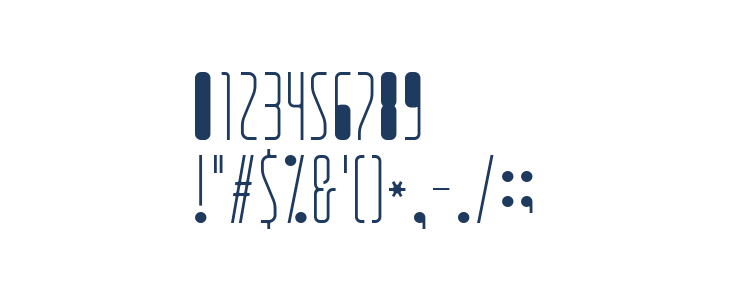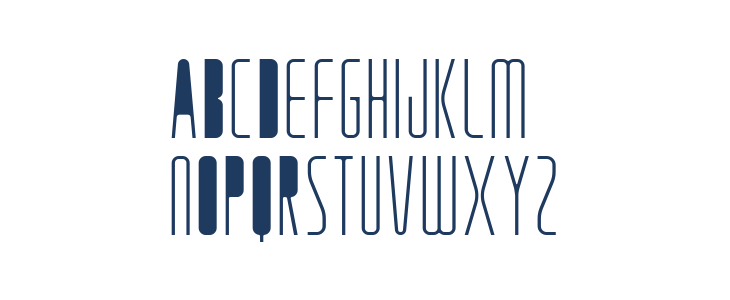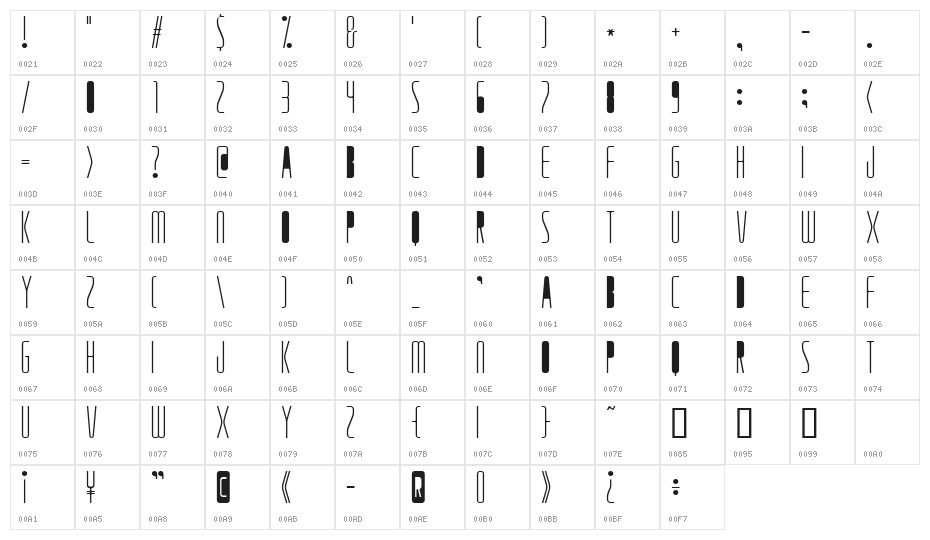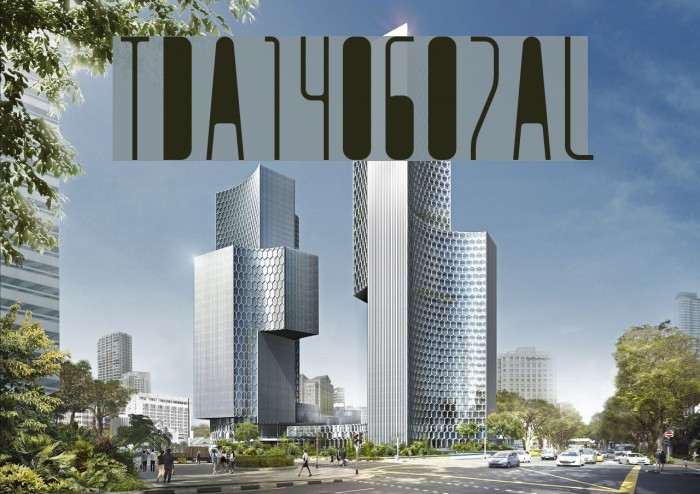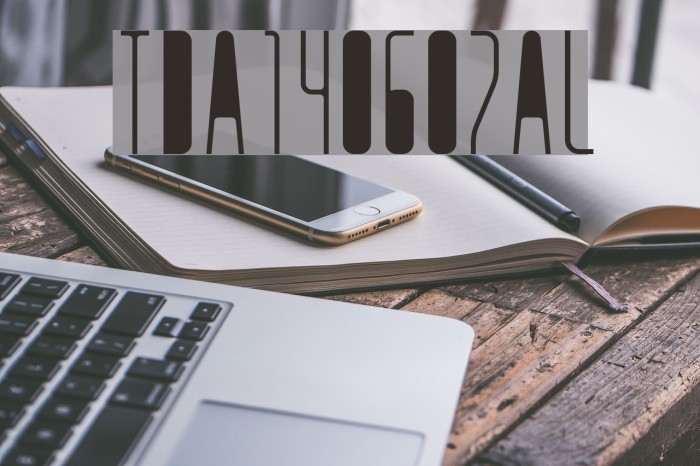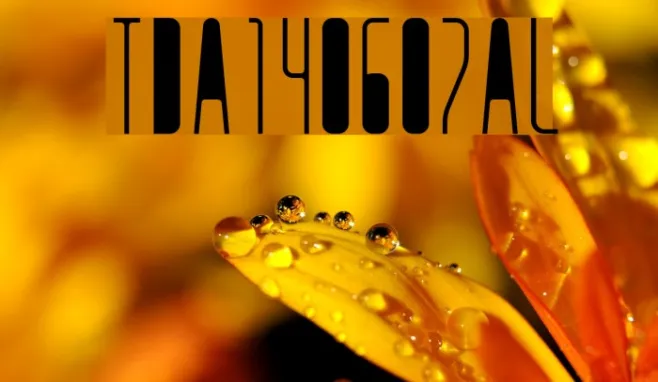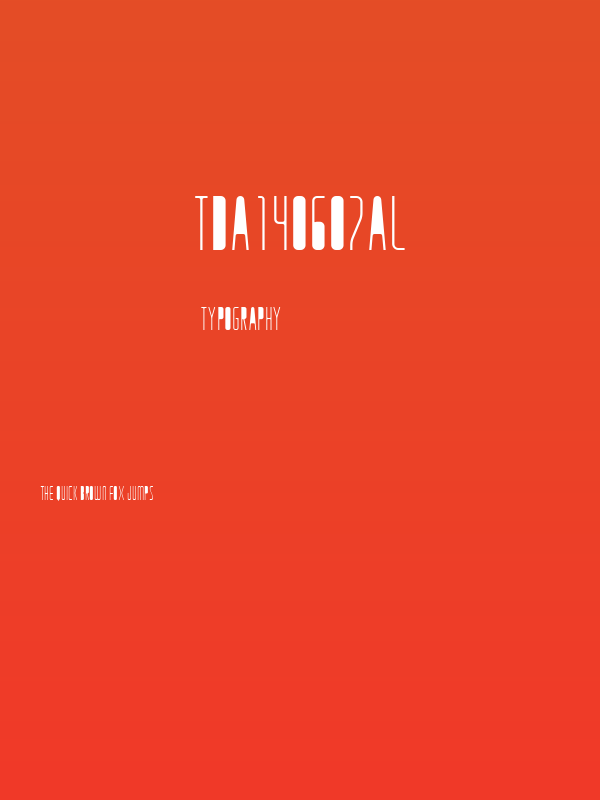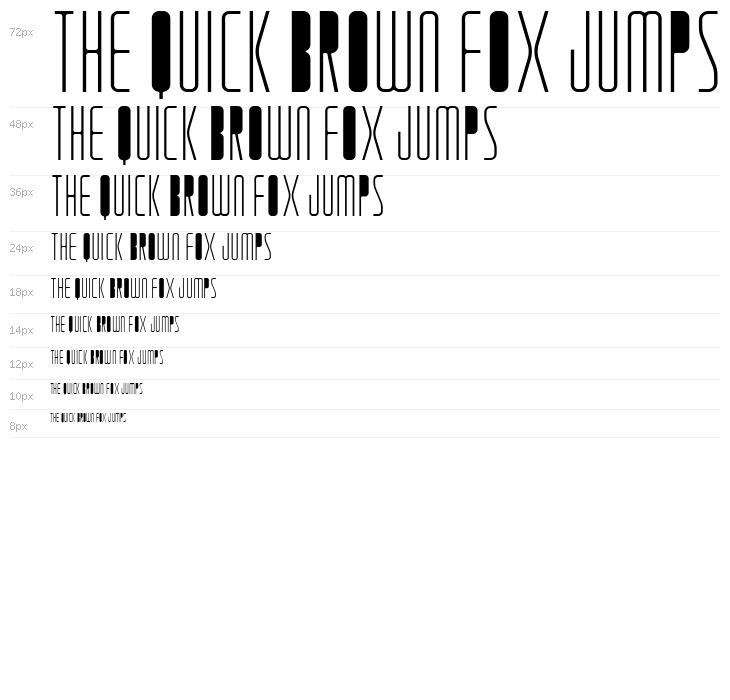
TDA140607AL Font
TDA140607AL Description
This font features a striking contrast between thick and thin strokes, creating a bold and modern appearance. The uppercase letters are tall and narrow, with a geometric influence that adds a sense of precision and structure. The lowercase letters maintain a similar style, ensuring consistency throughout the typeface. Numbers are designed with the same attention to detail, offering a cohesive look. Special characters are included, each crafted to match the overall aesthetic. The font's unique style makes it suitable for eye-catching designs where a contemporary and stylish look is desired.
| Proposed Projects | Perfect for branding, advertising, posters, and any project requiring a modern and bold typeface. |